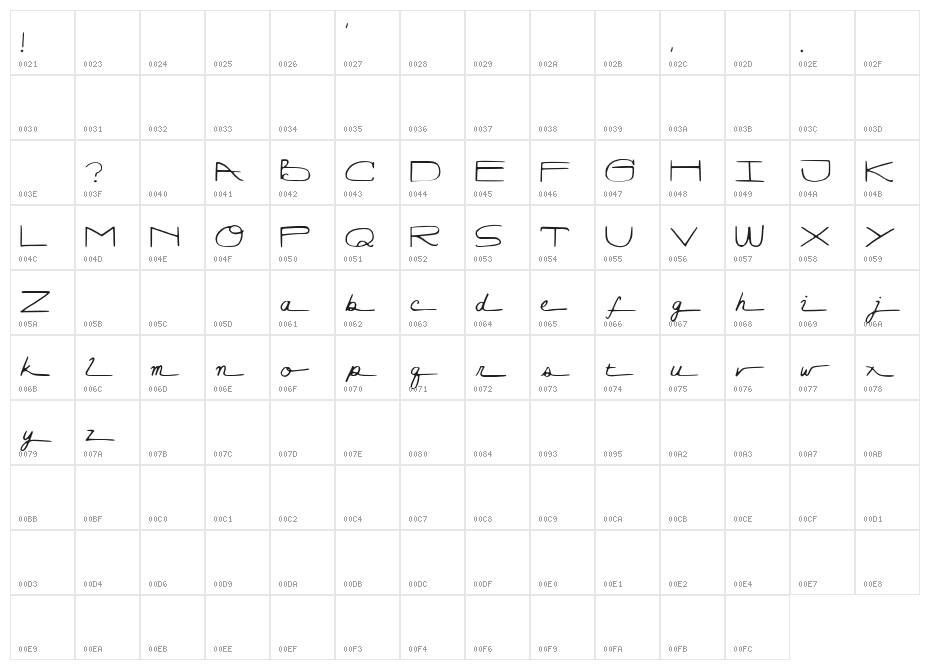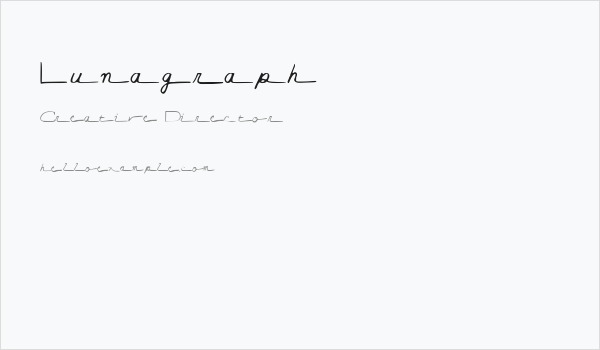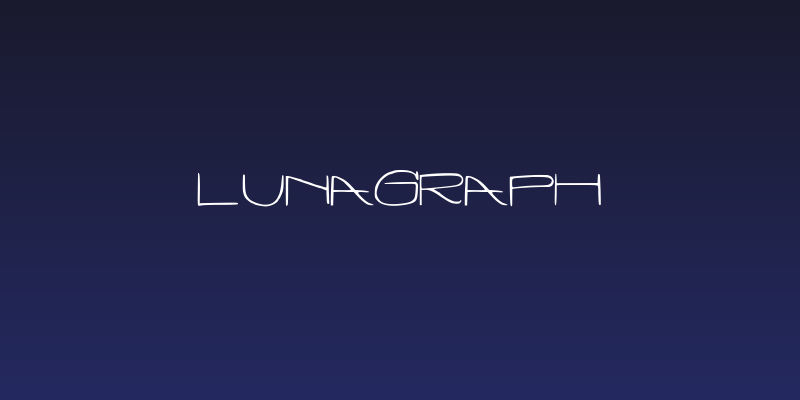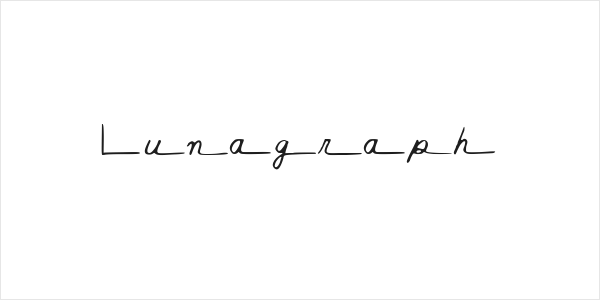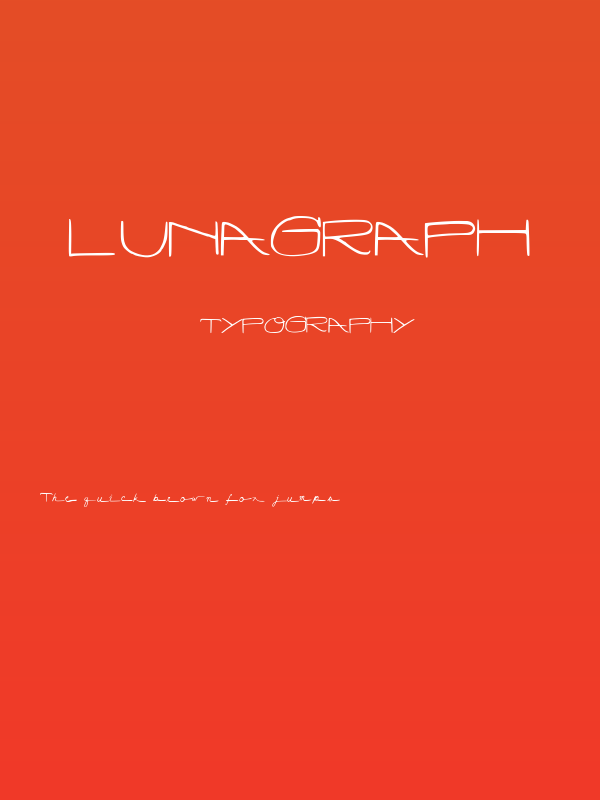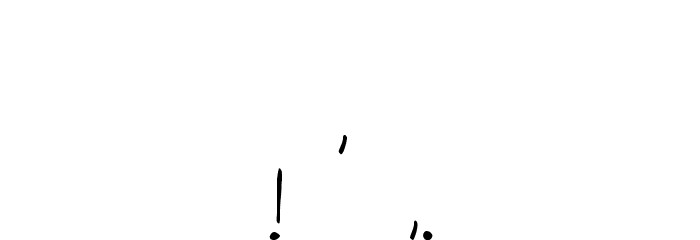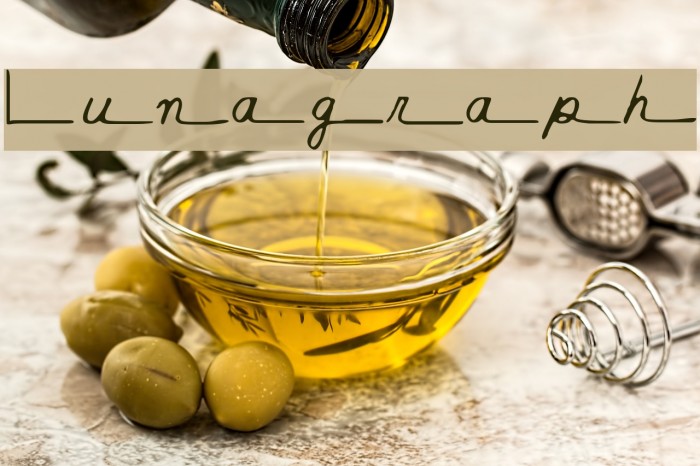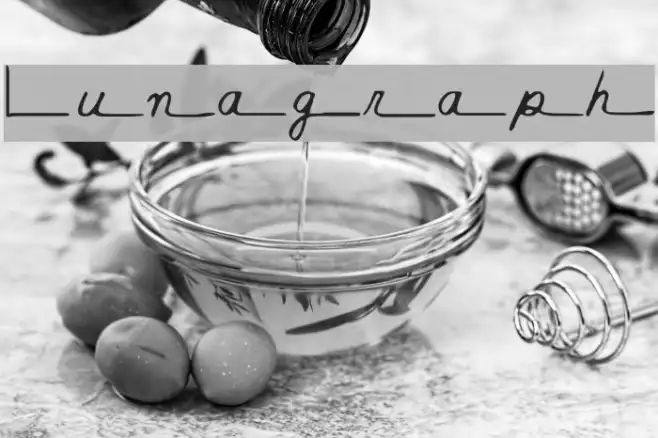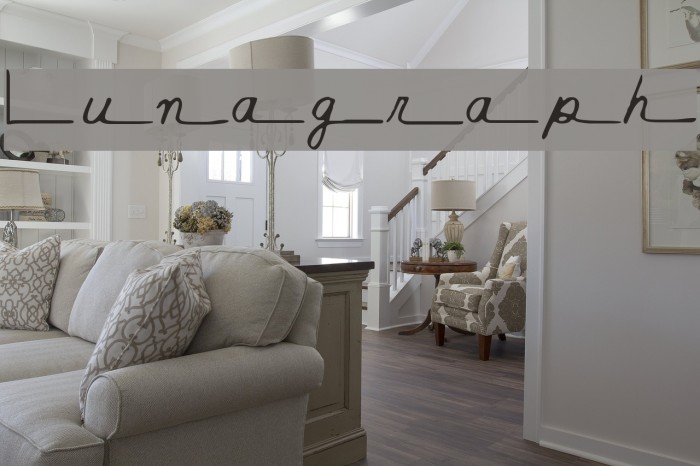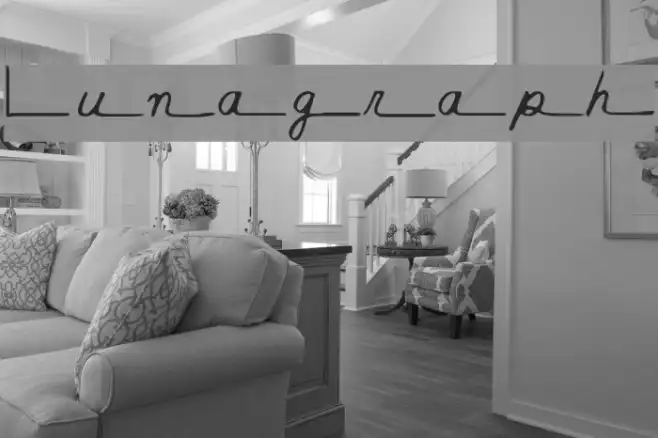
Lunagraph Font
Lunagraph Description
This font features a unique blend of geometric and cursive styles, creating a modern and artistic appearance. The uppercase letters are characterized by their angular, structured forms with a futuristic flair, while the lowercase letters exhibit a flowing, handwritten style that adds a personal touch. The combination of these elements results in a font that is both versatile and visually striking. The special characters maintain the font's overall aesthetic, ensuring consistency across all text elements. This font's distinctive design makes it suitable for creative projects that require a modern yet personal feel.
| Use Case | Logos, Creative projects, Posters |
| Proposed Projects | Ideal for branding, logos, creative posters, and modern web design. |